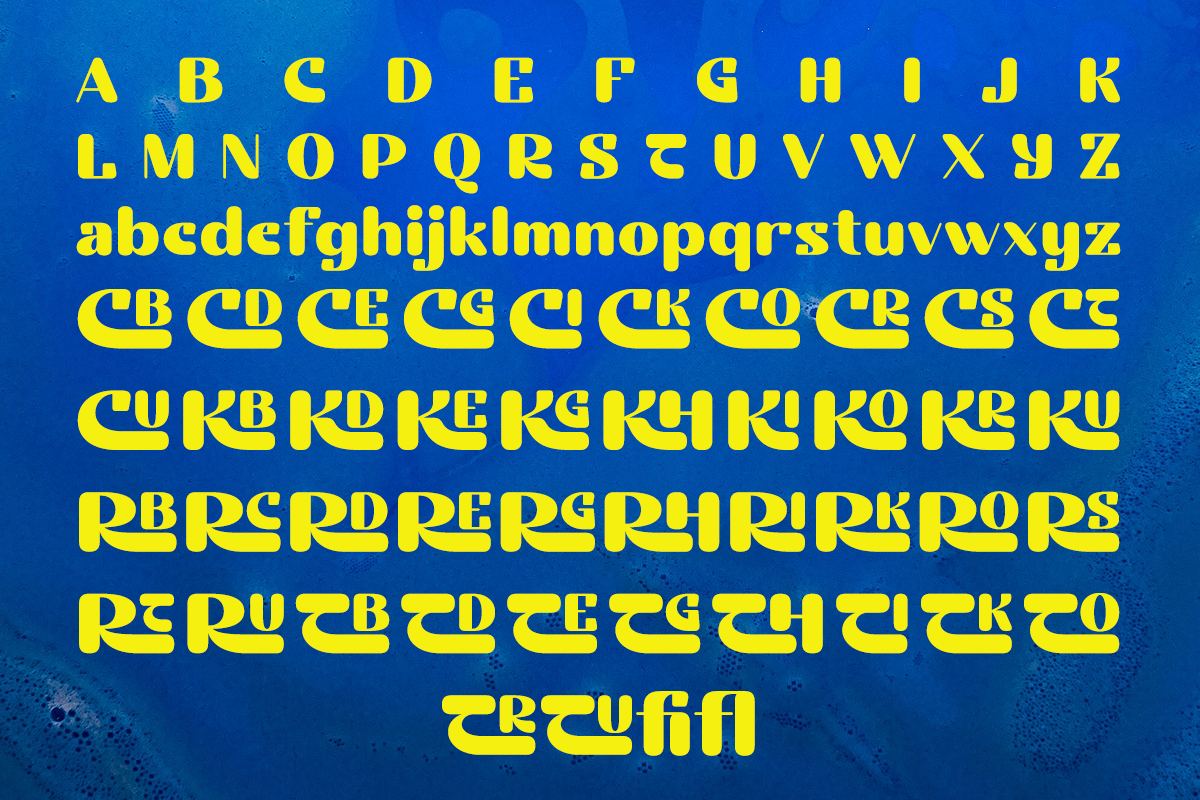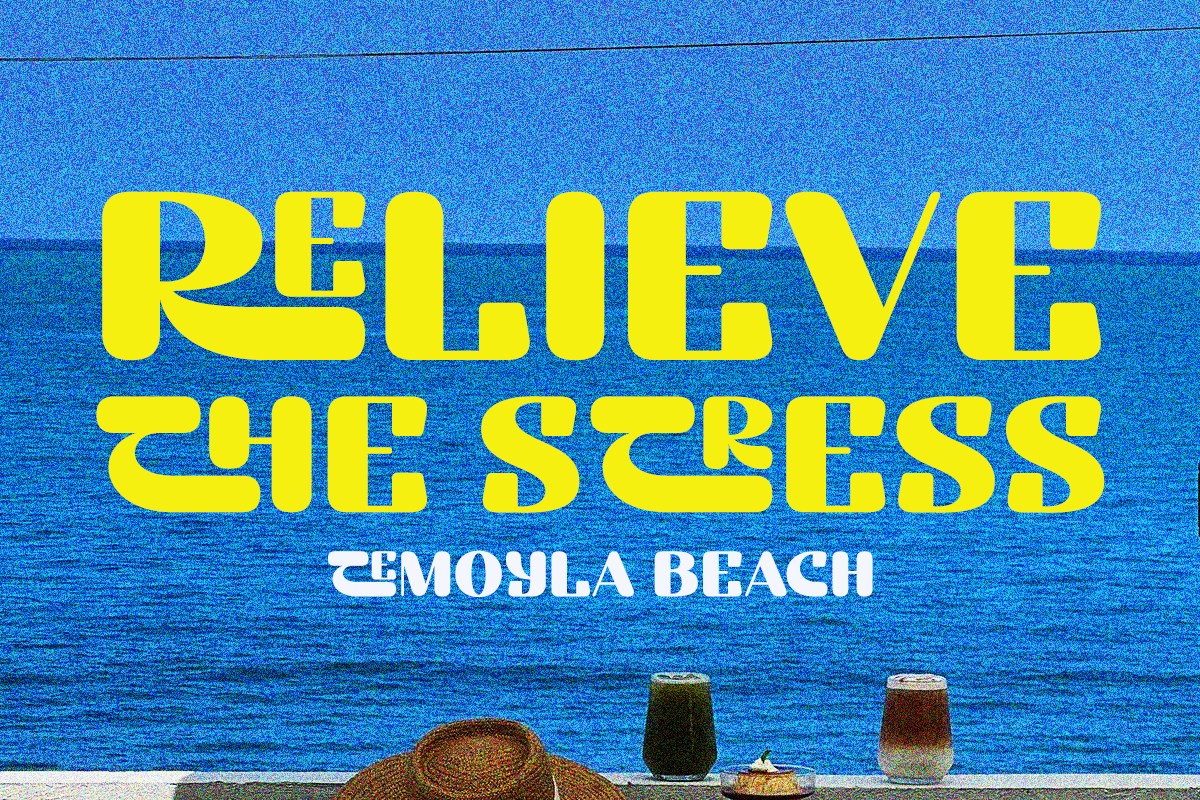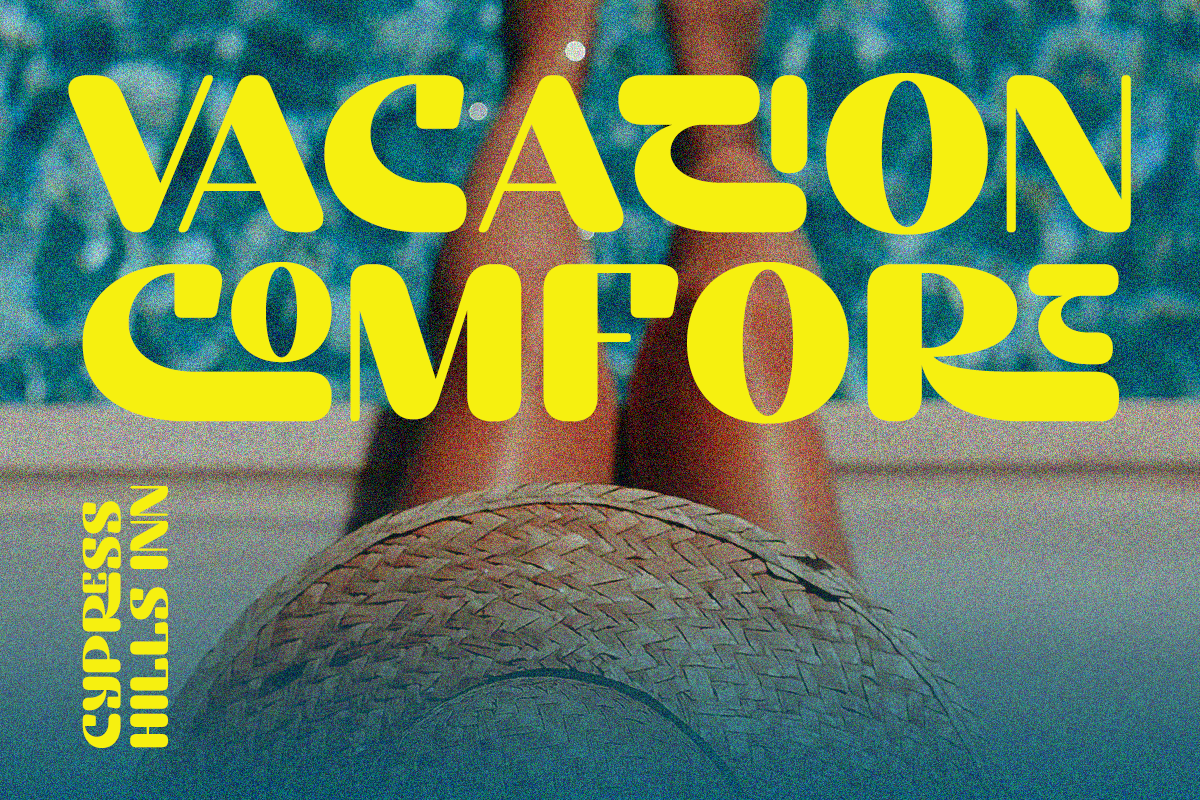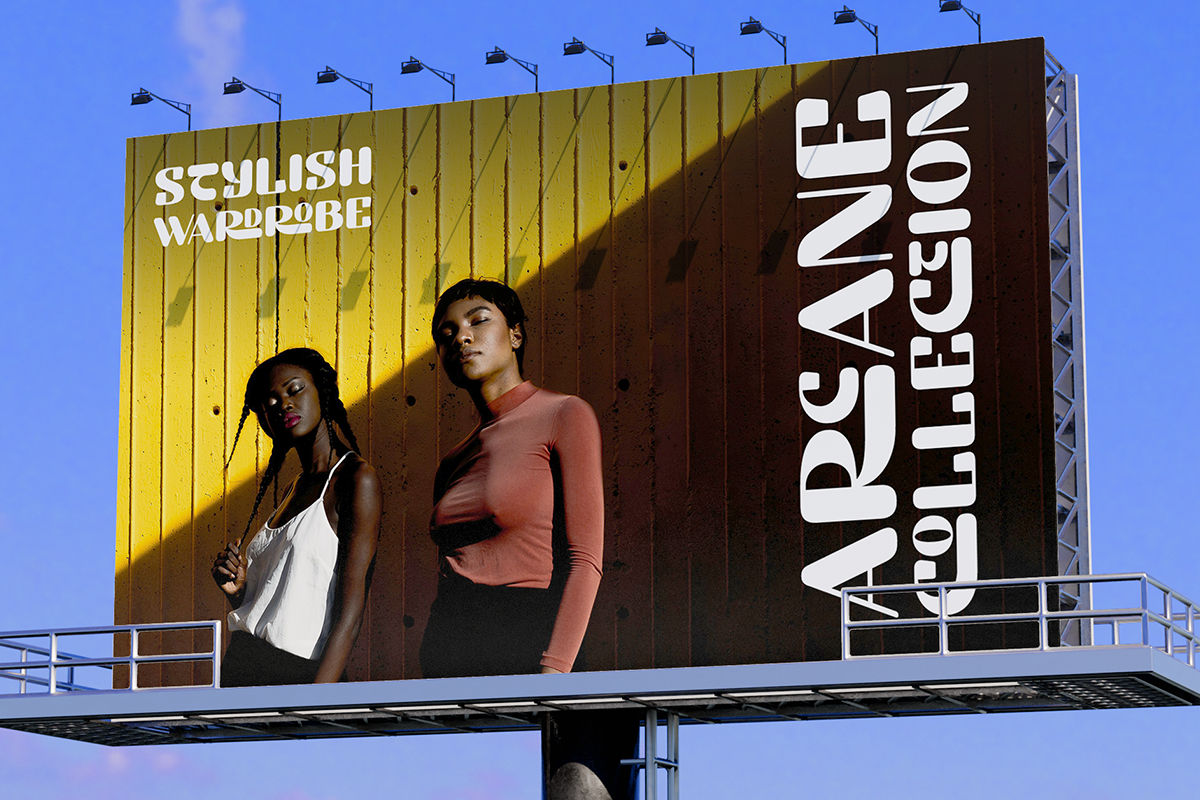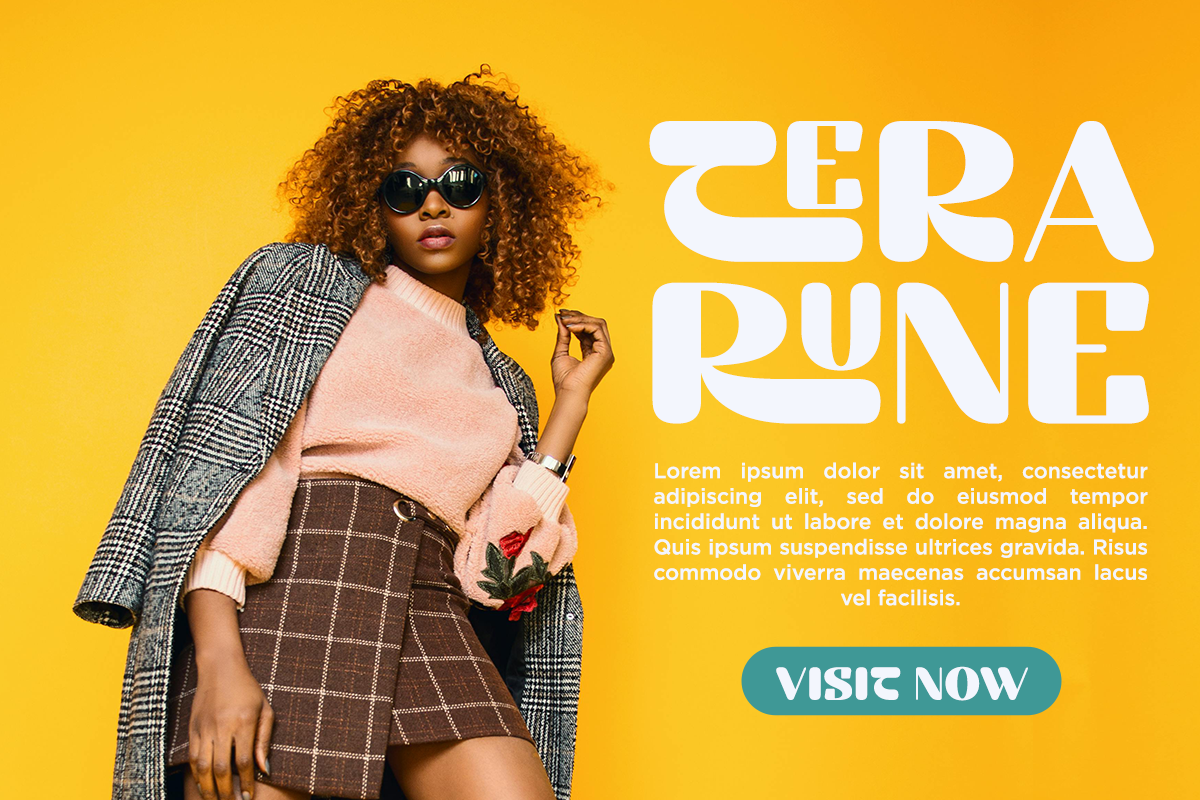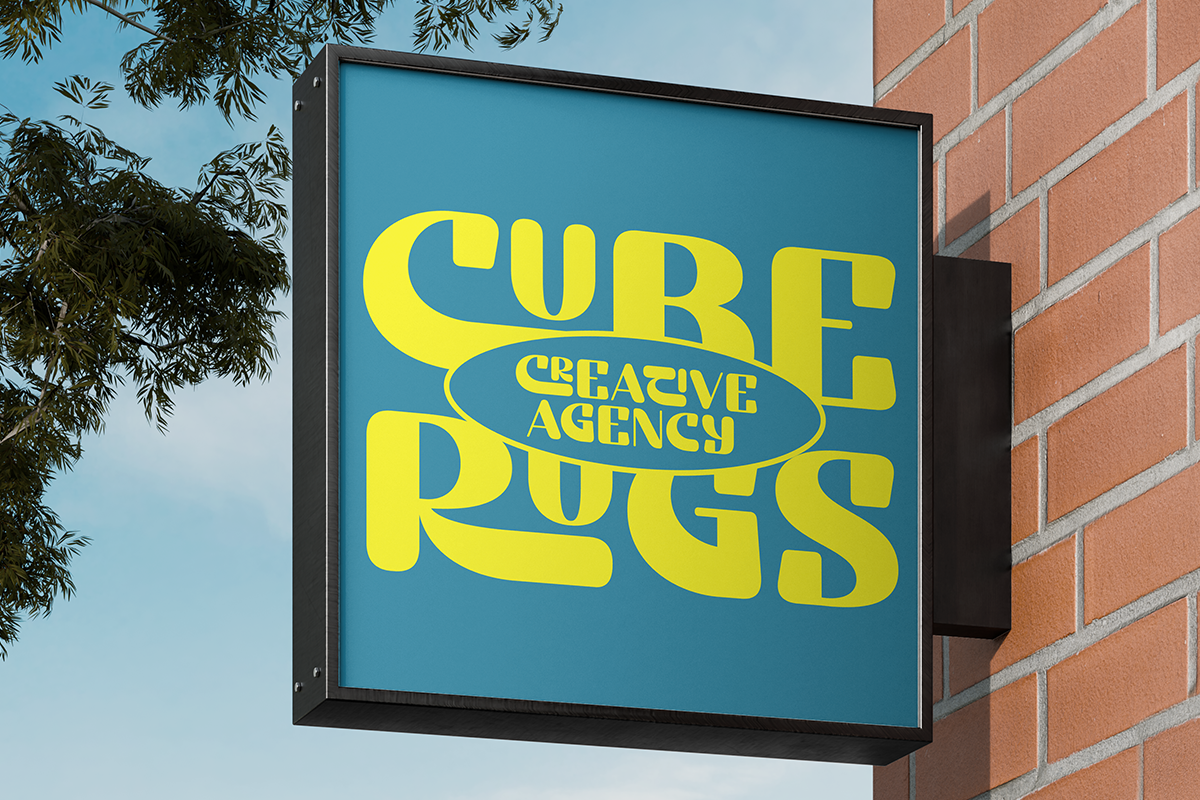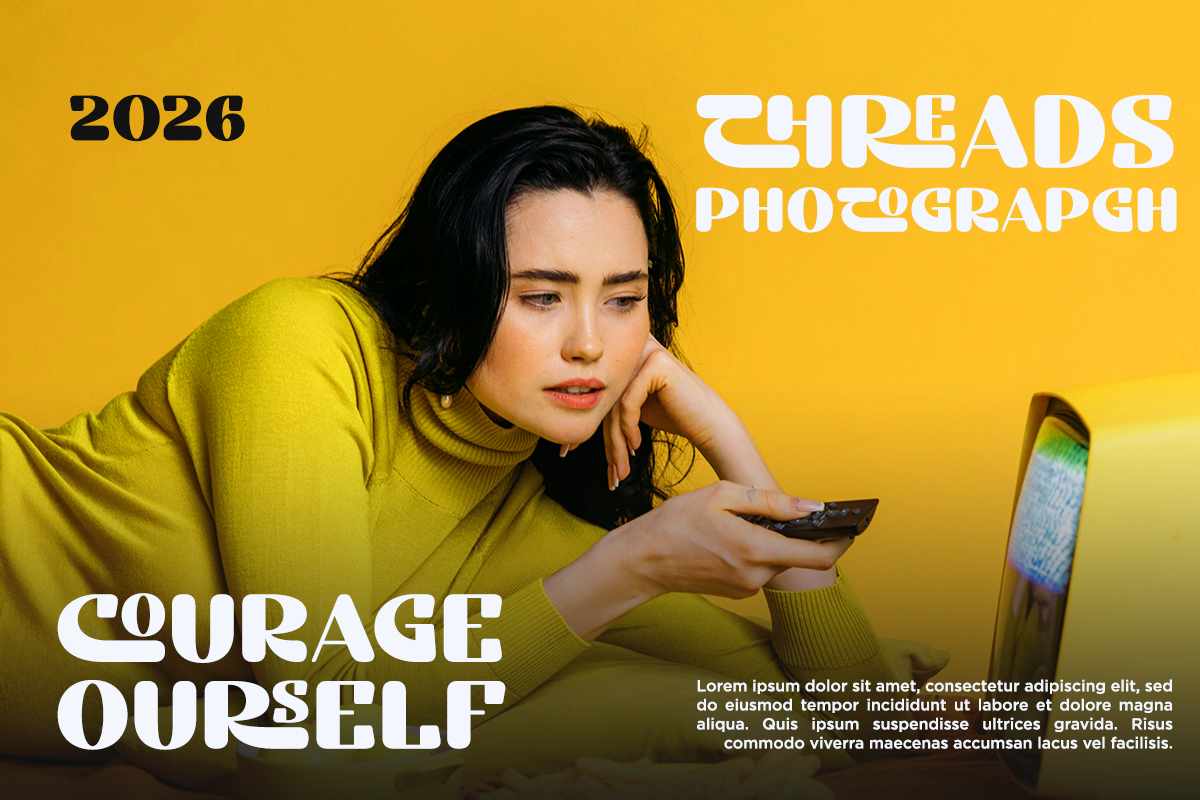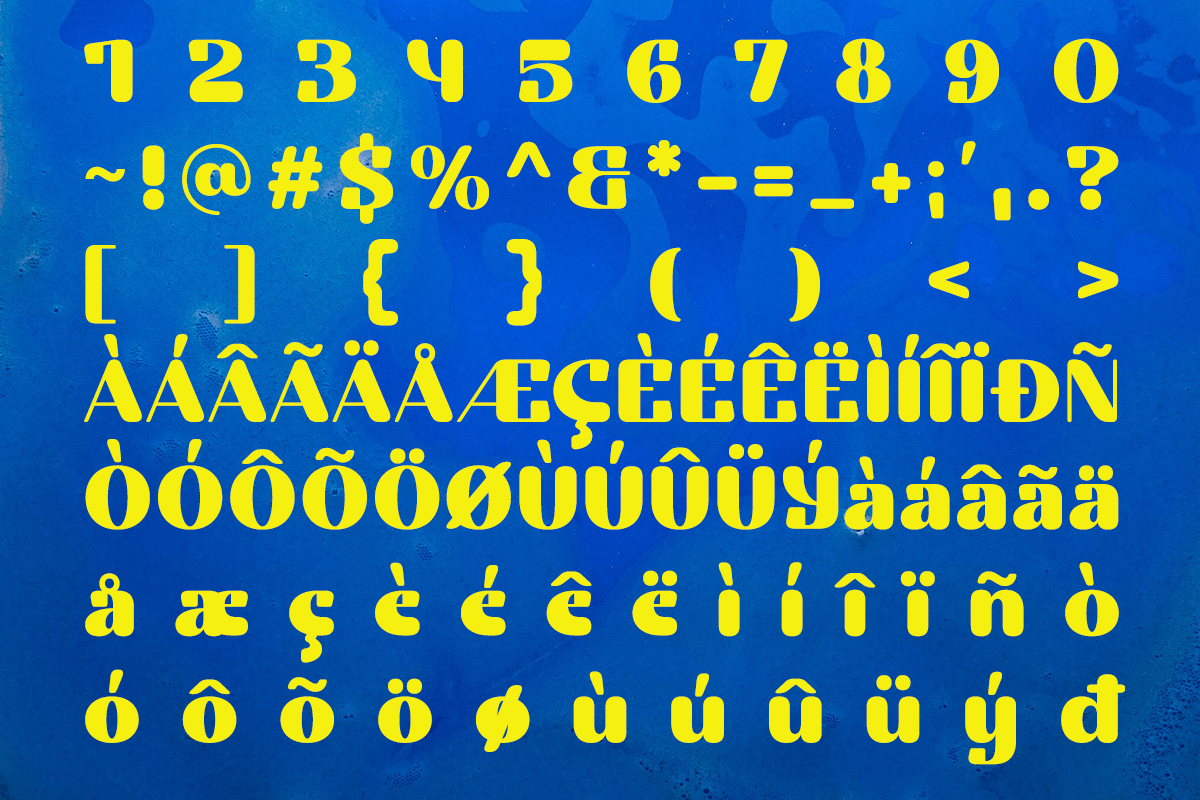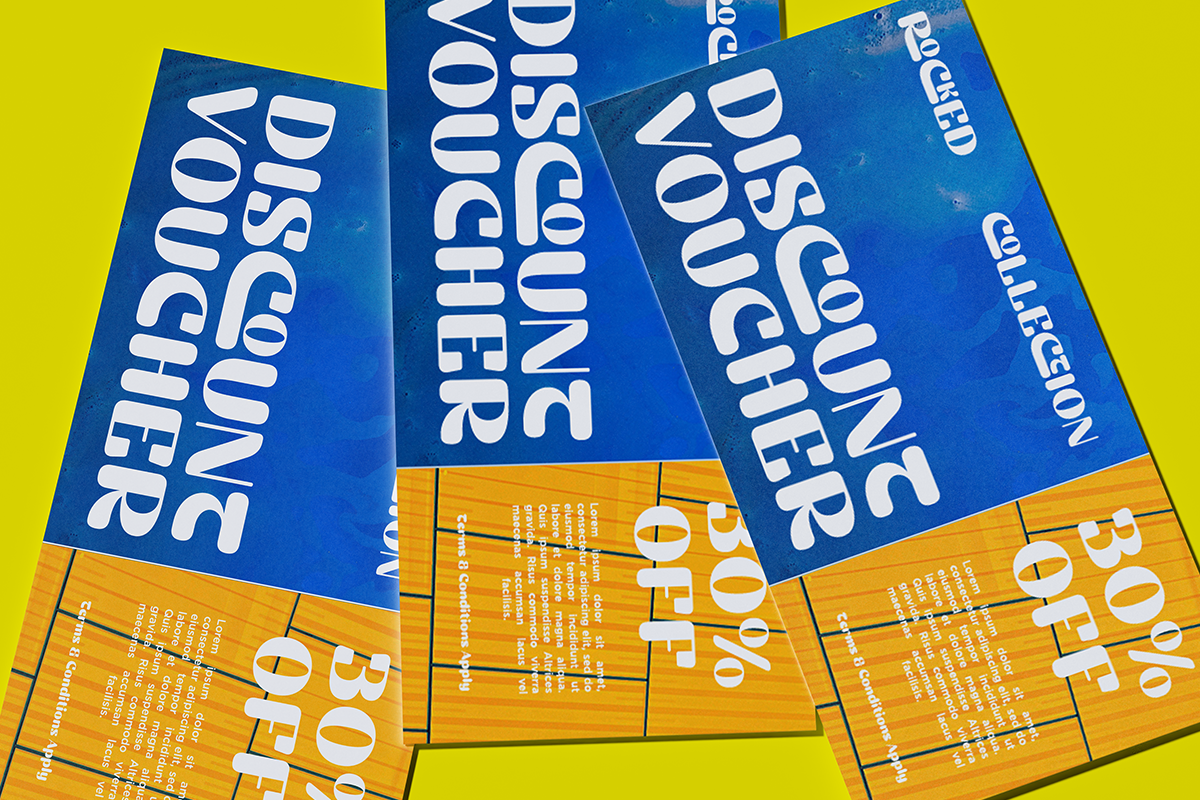
Gerhil - Bold Sans Serif
Gerhil is a modern bold sans serif font designed to make a strong visual impact. With its smooth curves, wide letterforms, and confident presence, Gerhil is perfect for designs that need to stand out while staying clean and stylish. The font balances a playful personality with a contemporary feel, making it highly versatile for both digital and print use. Perfect for Logos, branding, fashion editorials, posters, magazine covers, social media graphics, advertising, packaging design, website headers, typography quotes, product labels, creative headlines
- Ligature Set
- Symbol, and Number